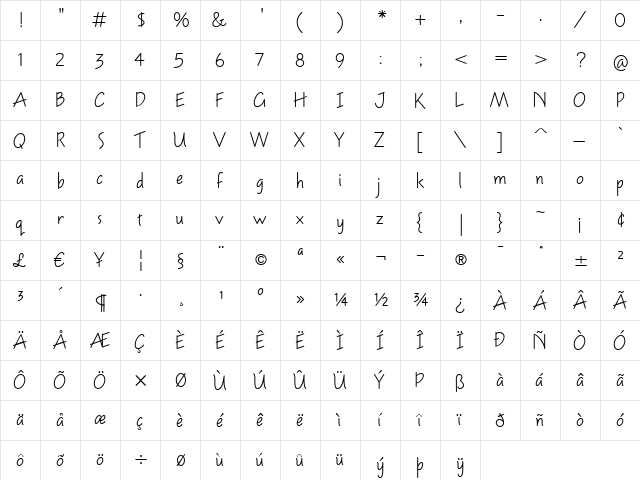
American Writer Regular
| Foundry | TYPADELIC FONTS |
| Designer | Ronna Penner |
Design Context for American Writer Typeface
American Writer offers clean, dependable letterforms without strong stylistic allegiance, making it a practical choice for designers who need flexibility.